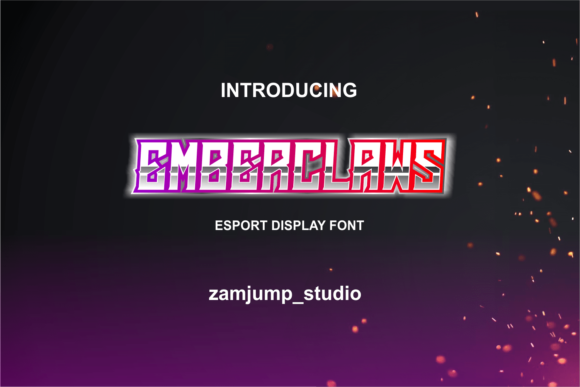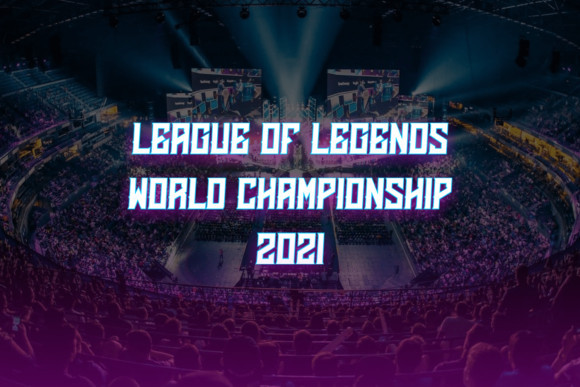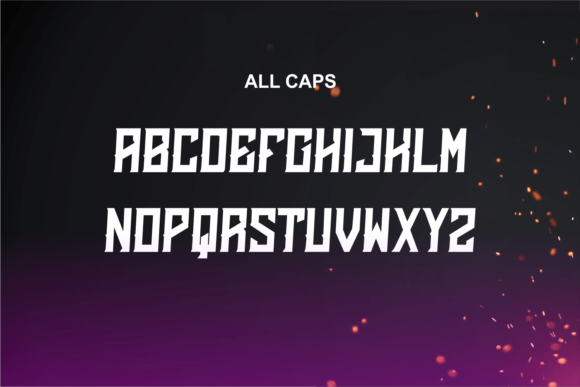
Emberclaws Font
Emberclaws is a bold and futuristic display font. No matter the topic, this font will be an incredibly asset to your fonts’ library, as it has the potential to elevate any creation.